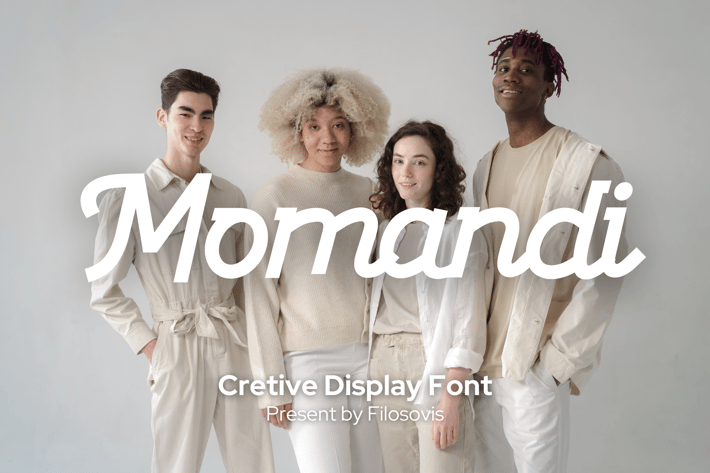
Momandi | Creative Display Font
For your creative project, use the Momandi-themed Creative Display Font. Creative display font is appropriate for every kind of design you produce, including greeting cards, posters, logos, and branding.